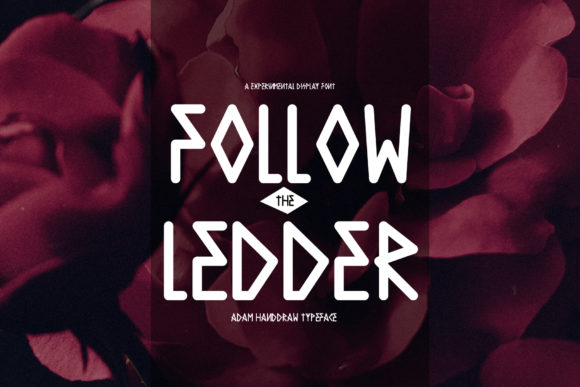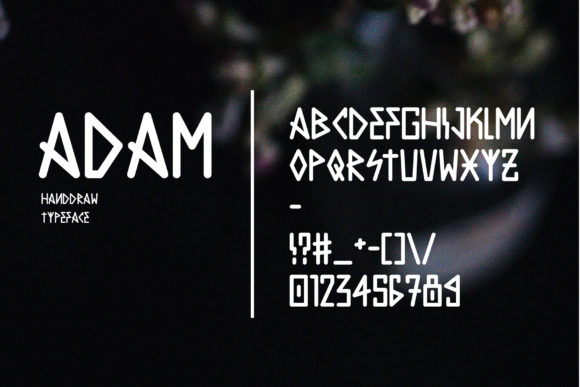
Introducing Adam Font: A Playful and Versatile Typeface for Designers and Crafters
Are you a designer or crafter looking for a unique and eye-catching font to elevate your creative projects? Look no further than Adam Font, a playfully designed uppercase typeface that is sure to capture your audience’s attention. With its simple, minimalist character set, Venomica – a font in the Adam Font family – is perfect for a wide range of applications, from crafting and DIY projects to digital designs and branding.
The Story Behind Adam Font
Adam Font is a carefully crafted typeface designed to bring a touch of playfulness and whimsy to your designs. The font family, which includes Venomica, is the brainchild of a talented designer who sought to create a unique and versatile font that would appeal to a wide range of creatives. With its bold, uppercase letters and minimalist character set, Adam Font is the perfect choice for designers and crafters who want to add a personal touch to their work.
Key Features of Venomica: A Font in the Adam Font Family
So, what makes Venomica, a font in the Adam Font family, stand out from the crowd? Here are just a few of its key features:
- Playful design: Venomica boasts a playful, hand-drawn design that is sure to add a touch of personality to your projects.
- Simple, minimalist character set: With a focus on clean lines and simple shapes, Venomica’s character set is both elegant and easy to read.
- Uppercase letters: As an uppercase typeface, Venomica is perfect for headings, titles, and other applications where you want to make a bold statement.
- Versatile: Whether you’re working on a digital design, a crafting project, or a branding campaign, Venomica is the perfect choice.
Using Adam Font in Your Designs
So, how can you use Adam Font, specifically Venomica, in your designs? Here are just a few ideas to get you started:
- Crafting and DIY projects: Add a personal touch to your crafting and DIY projects with Venomica’s playful, hand-drawn design.
- Digital designs: Use Venomica to add a bold, eye-catching element to your digital designs, from social media graphics to website headers.
- Branding and marketing: Make a statement with Venomica’s unique design, perfect for logos, business cards, and other branding materials.
- Signage and display: Use Venomica to create eye-catching signs and displays that are sure to grab attention.
Tips for Getting the Most Out of Adam Font
To get the most out of Adam Font, specifically Venomica, here are a few tips to keep in mind:
- Experiment with different colors: Venomica’s bold design looks great in a wide range of colors, so don’t be afraid to experiment and find the perfect hue for your project.
- Mix and match with other fonts: Combine Venomica with other fonts to create a unique and visually interesting design.
- Pay attention to spacing: Make sure to leave enough space between letters and words to ensure that your design is easy to read and visually appealing.
| Font Name | Adam Font |
In conclusion, Adam Font, specifically Venomica, is a playfully designed uppercase typeface that is sure to elevate your creative projects. With its simple, minimalist character set and bold, eye-catching design, Venomica is perfect for designers and crafters who want to add a personal touch to their work. Whether you’re working on a digital design, a crafting project, or a branding campaign, Venomica is the perfect choice. So why wait? Download Adam Font today and start creating with Venomica!